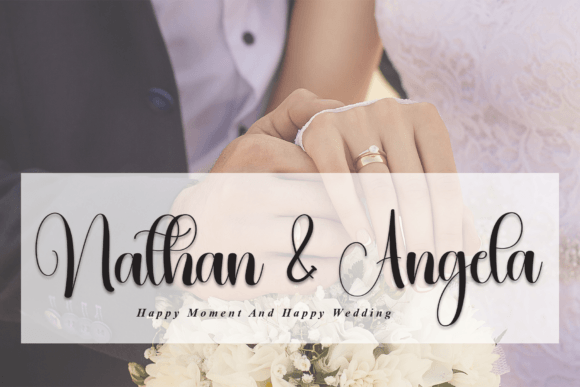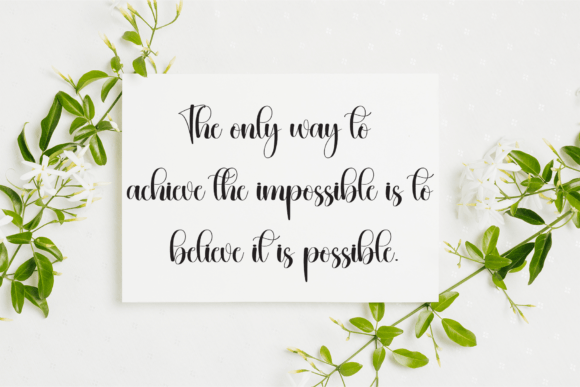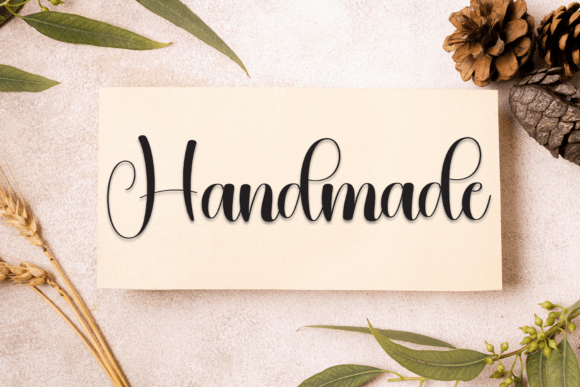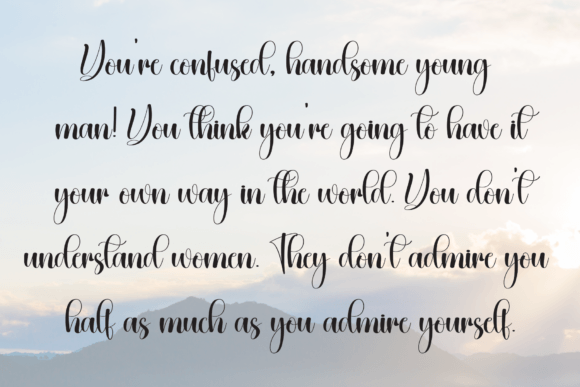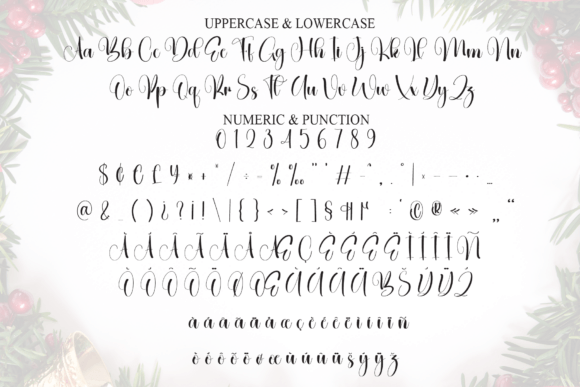
Introducing Britannia Christmas Font: A Beautiful Script Handwritten Font for Your Holiday Designs
Are you looking for a unique and elegant font to add a touch of warmth and creativity to your holiday designs? Look no further than Britannia Christmas Font. This beautiful script handwritten font features a smooth, flowing style with elegant, connected letters that give a personal, casual feel, perfect for designers and crafters who want to create stunning holiday projects.
What Makes Britannia Christmas Font Special?
Britannia Christmas Font is a one-of-a-kind font that is specifically designed to bring a touch of elegance and sophistication to your holiday designs. Its smooth, flowing style and connected letters make it perfect for creating beautiful holiday cards, gift tags, and other paper crafts. The font’s casual feel also makes it ideal for creating more personal and informal designs, such as holiday party invitations or festive social media graphics.
Key Features of Britannia Christmas Font
- Smooth, flowing style: Britannia Christmas Font features a smooth, flowing style that gives your designs a elegant and sophisticated look.
- Elegant, connected letters: The font’s connected letters add a touch of elegance and sophistication to your designs, making them perfect for holiday projects.
- Personal, casual feel: The font’s casual feel makes it ideal for creating more personal and informal designs, such as holiday party invitations or festive social media graphics.
- Perfect for paper crafts: Britannia Christmas Font is perfect for creating beautiful holiday cards, gift tags, and other paper crafts.
How to Use Britannia Christmas Font in Your Designs
Britannia Christmas Font is easy to use and can be incorporated into a variety of design projects. Here are a few ideas to get you started:
- Holiday cards: Use Britannia Christmas Font to create beautiful and elegant holiday cards that are sure to impress your friends and family.
- Gift tags: Add a personal touch to your gifts with custom gift tags featuring Britannia Christmas Font.
- Holiday party invitations: Create festive and fun holiday party invitations using Britannia Christmas Font.
- Social media graphics: Use Britannia Christmas Font to create festive and engaging social media graphics that are sure to get noticed.
Tips for Getting the Most Out of Britannia Christmas Font
Here are a few tips for getting the most out of Britannia Christmas Font:
- Experiment with different colors: Try pairing Britannia Christmas Font with different colors and textures to add depth and interest to your designs.
- Use it with other fonts: Combine Britannia Christmas Font with other fonts to create a unique and interesting design.
- Play with different sizes: Experiment with different font sizes to add visual interest to your designs.
Britannia Christmas Font is a beautiful and elegant script handwritten font that is perfect for adding a touch of warmth and creativity to your holiday designs. With its smooth, flowing style and connected letters, it’s ideal for creating stunning holiday cards, gift tags, and other paper crafts. Whether you’re a designer or crafter, Britannia Christmas Font is sure to become a favorite in your collection.